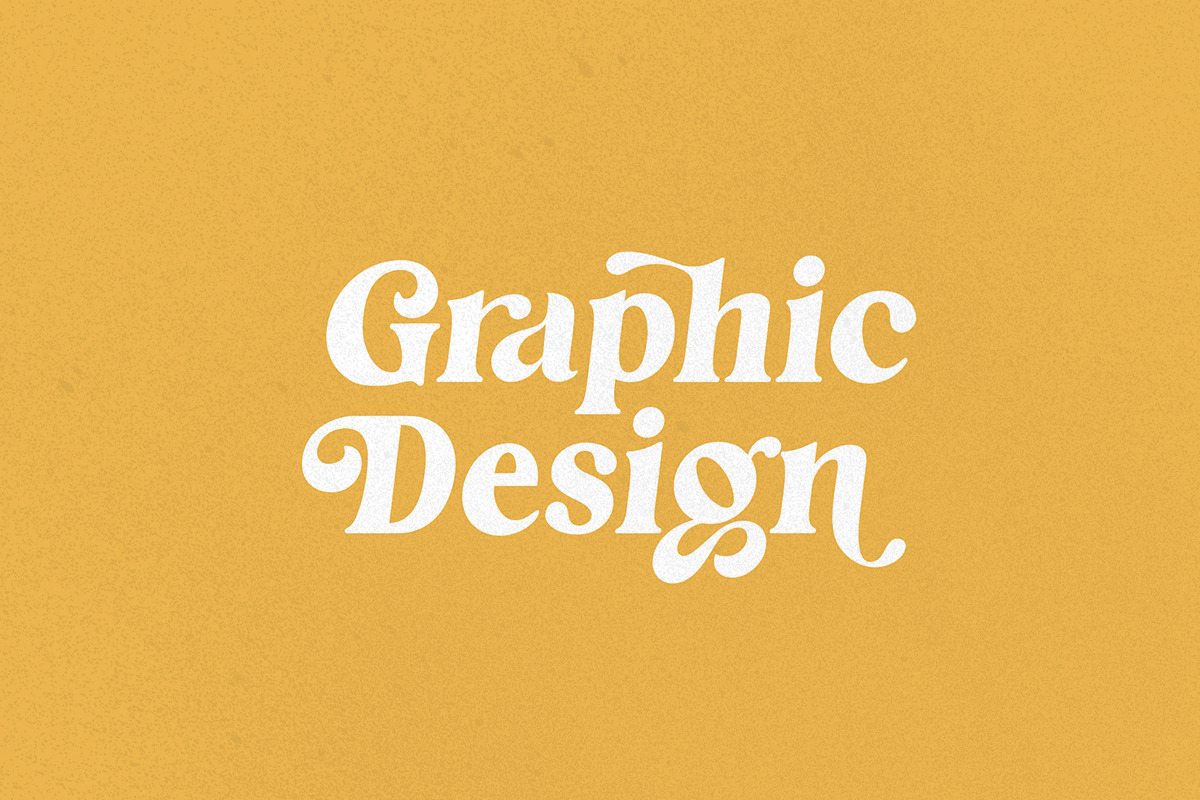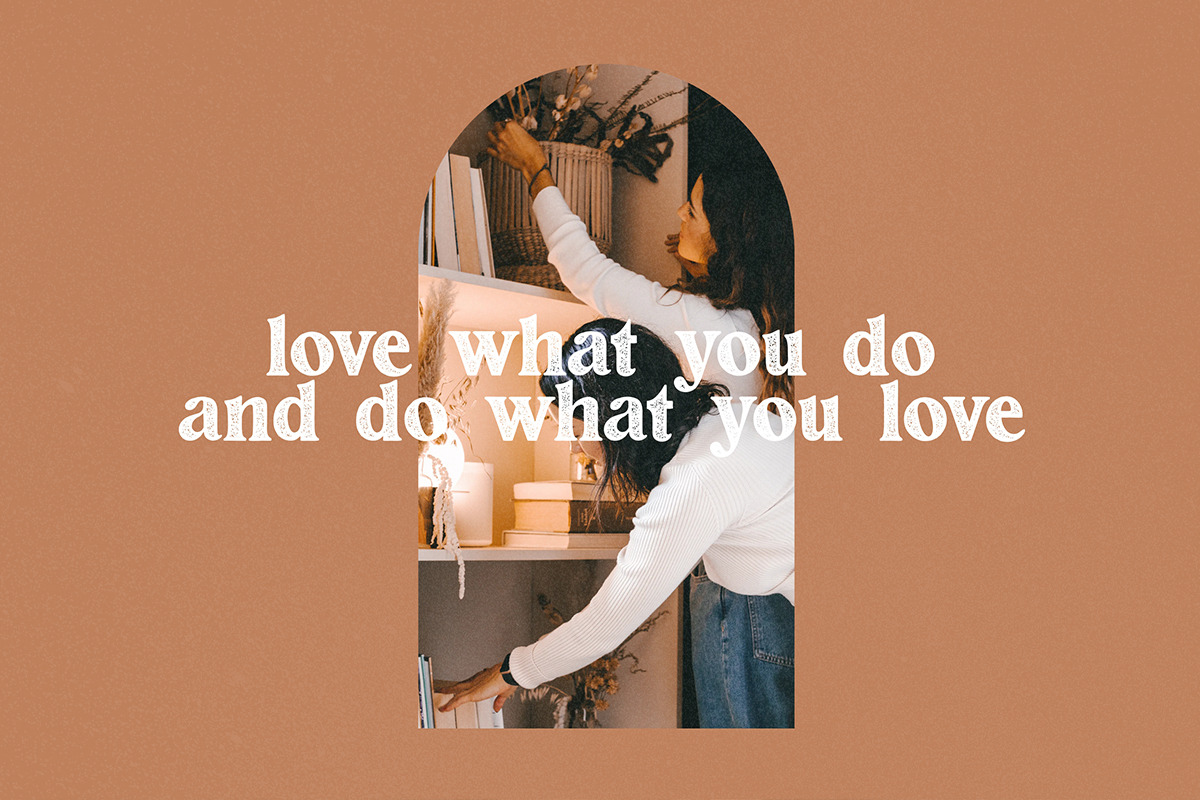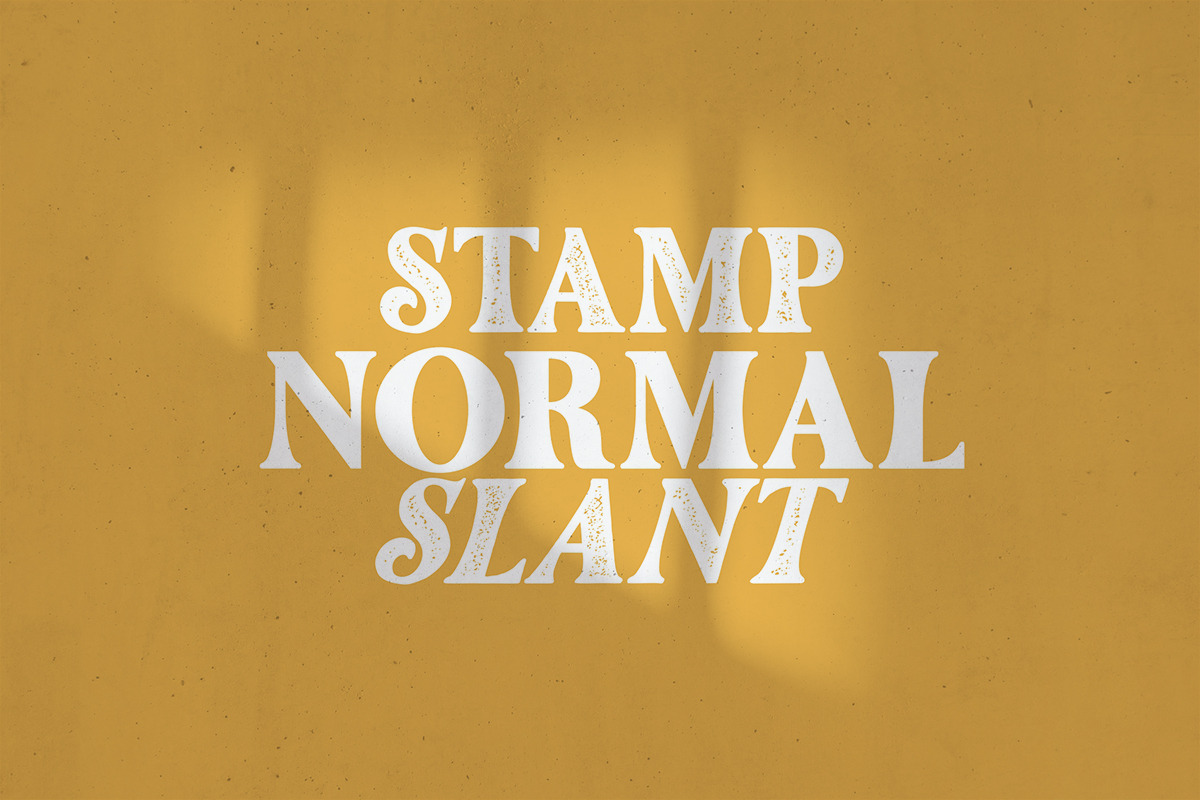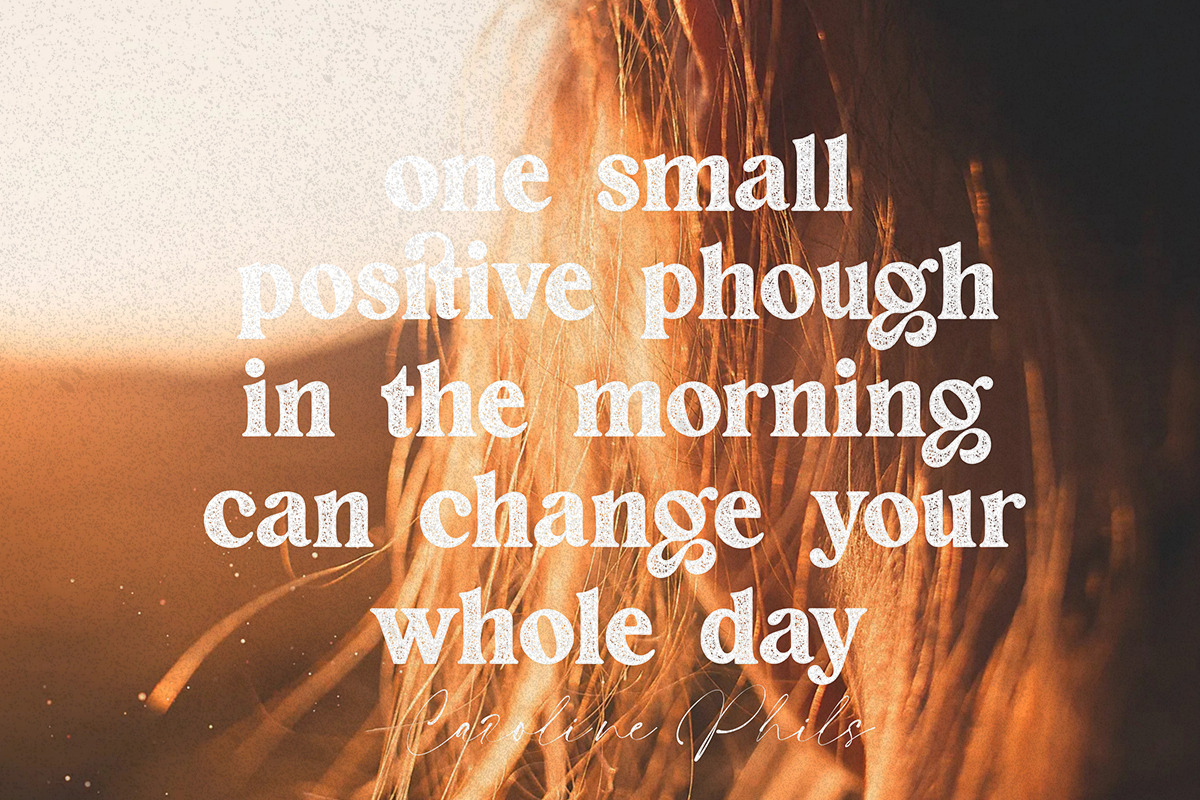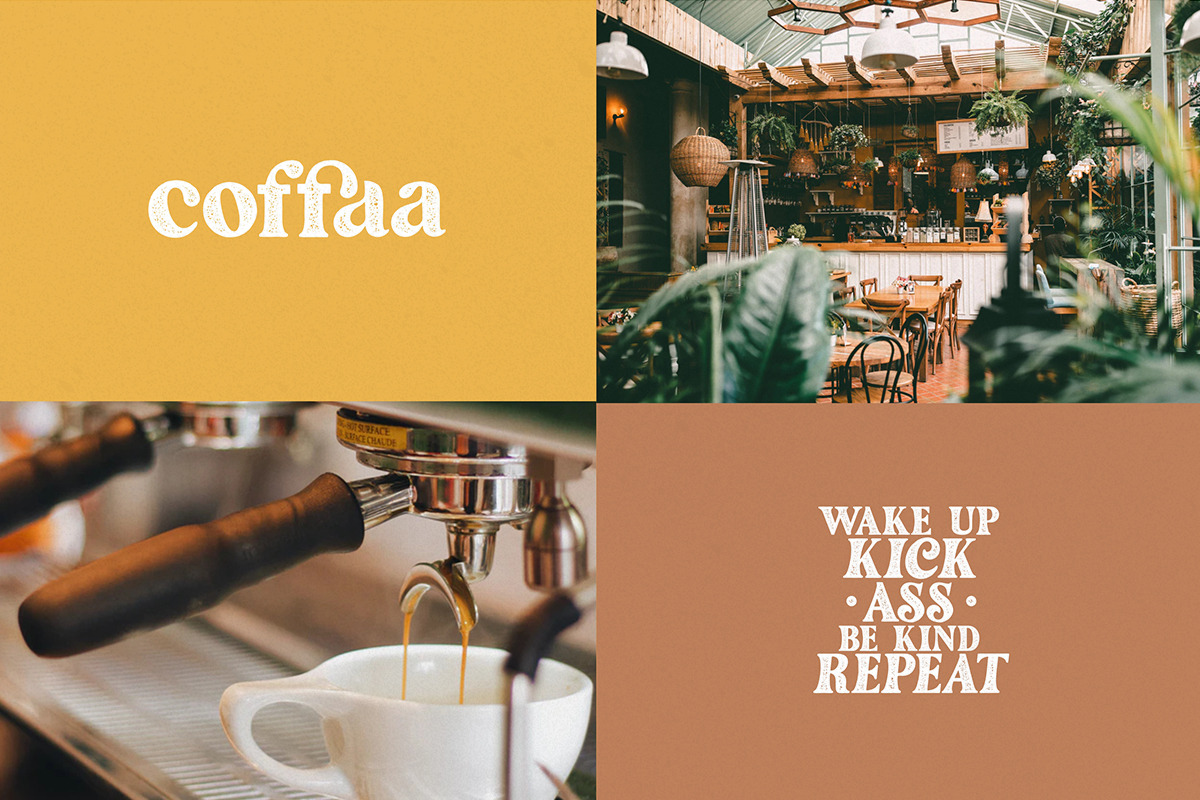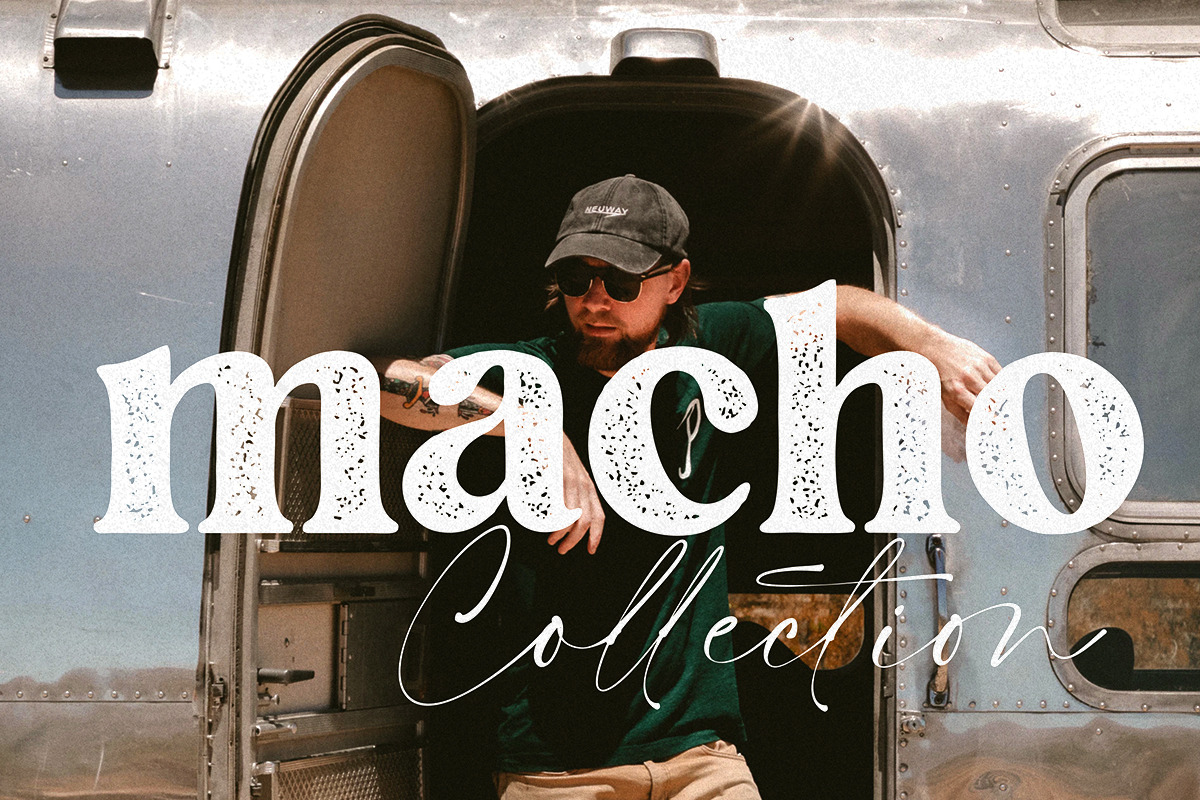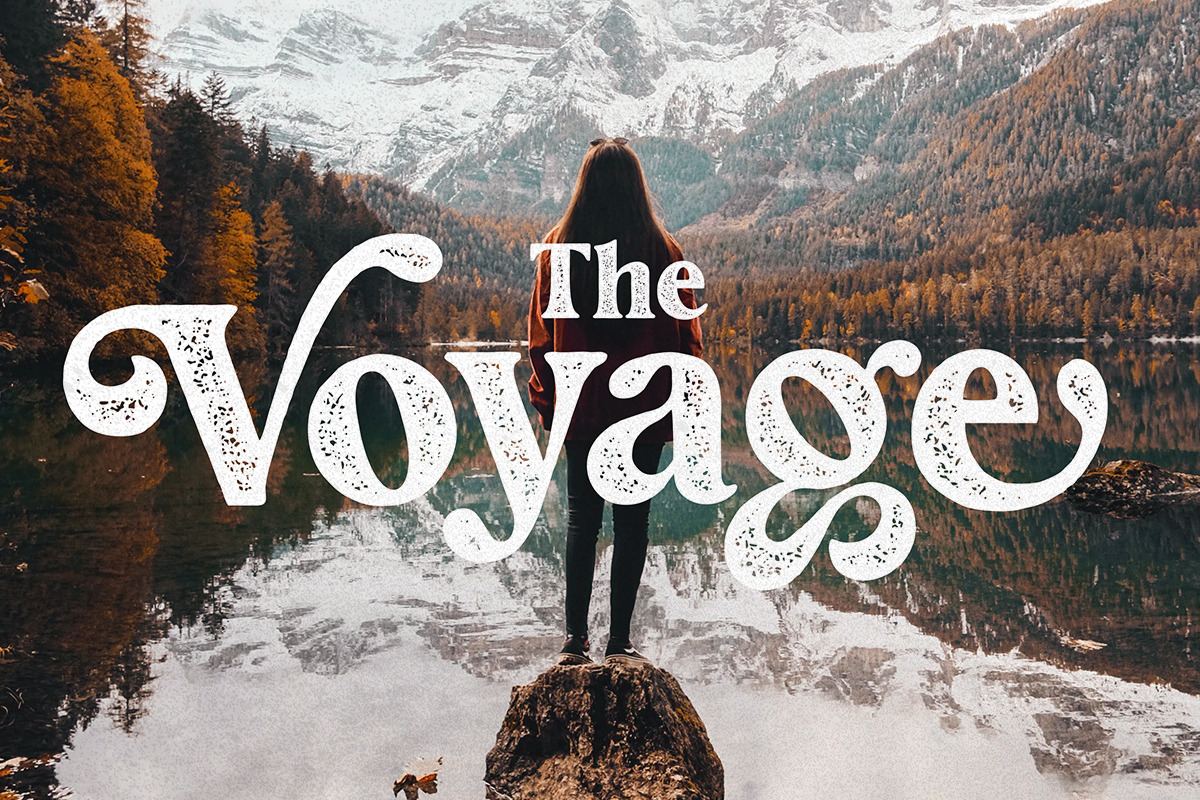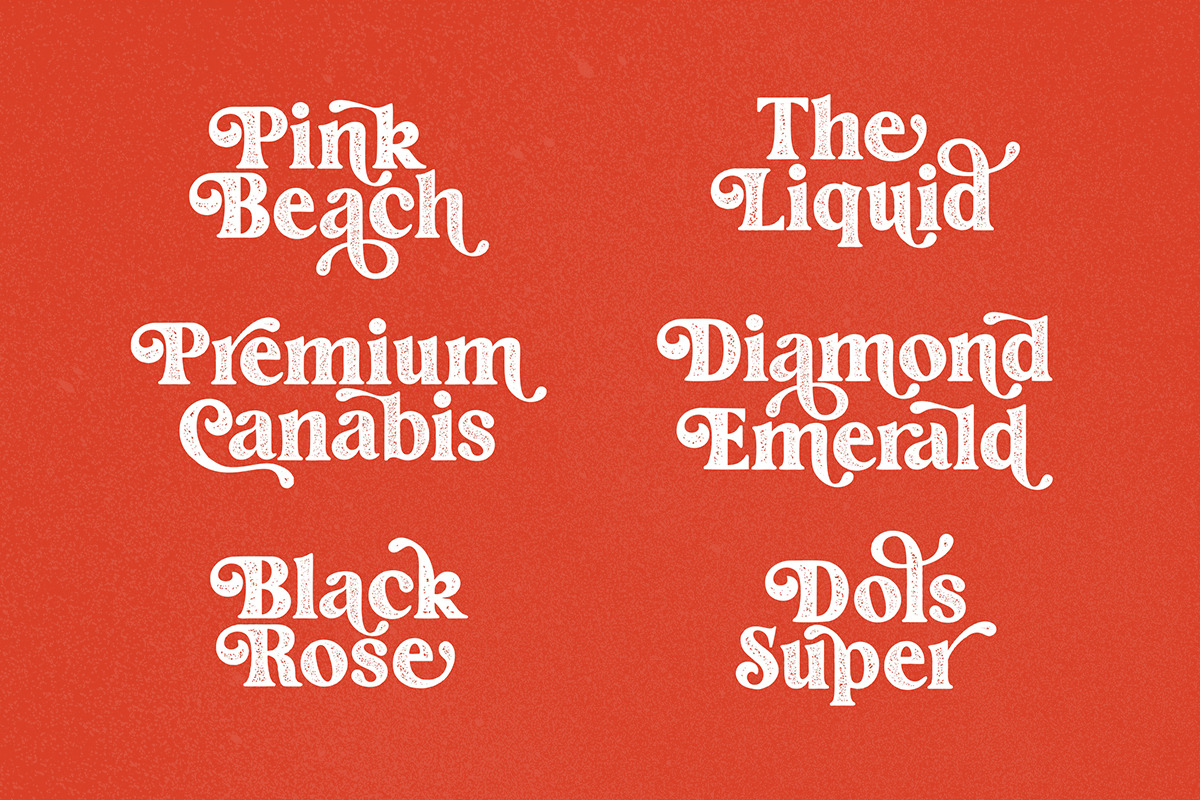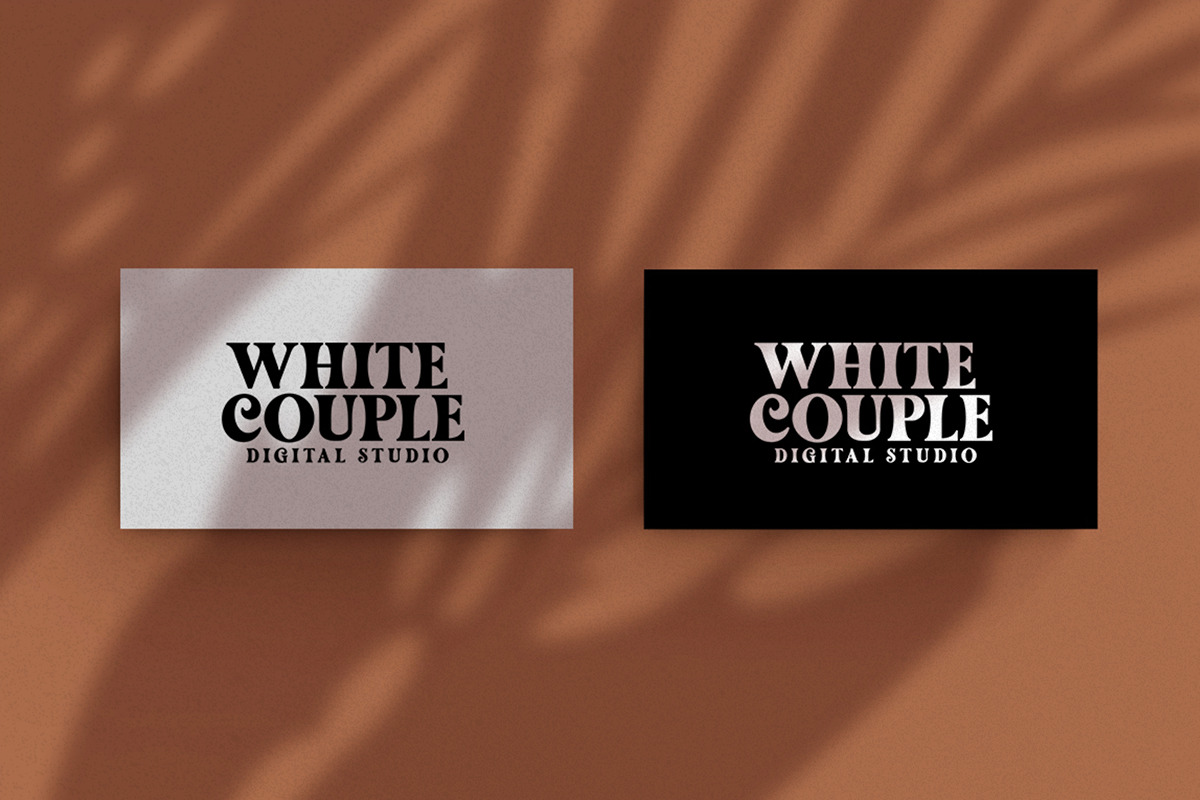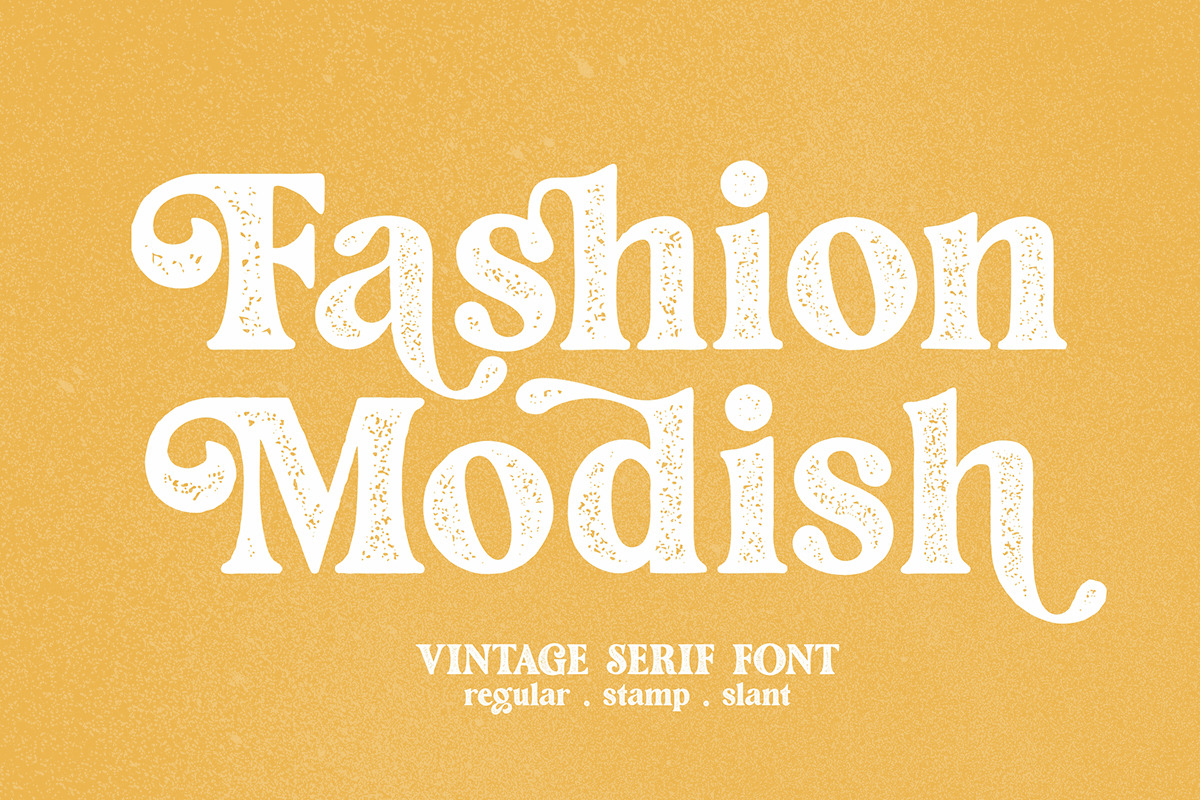
Fashion Modish / Vintage Letterpress
Introducing Modish Fashion with a bold and modern vintage style and a touch of stamp effect so you can feel a very distinctive vintage feel.
If your latest project is calling for a touch of class, it's time to invite Fashion Modish into your home. This beautiful and elegant typeface sports 11 unique fonts, OpenType features such as ligatures and stylistic alternates, and even comes in webfonts. Perfect for posters, logos and stationery, this is one elegant font family just waiting to impress.
Highlights:
- Get 3 style incredible fonts in 1 spectacular family.
- Clean, Stamp, Slant
- Stylistic alternates & ligatures.
- Supports multilinguage
Perfect for posters, logos, stationary, headlines, labels, books, magazines, newspapers and more.